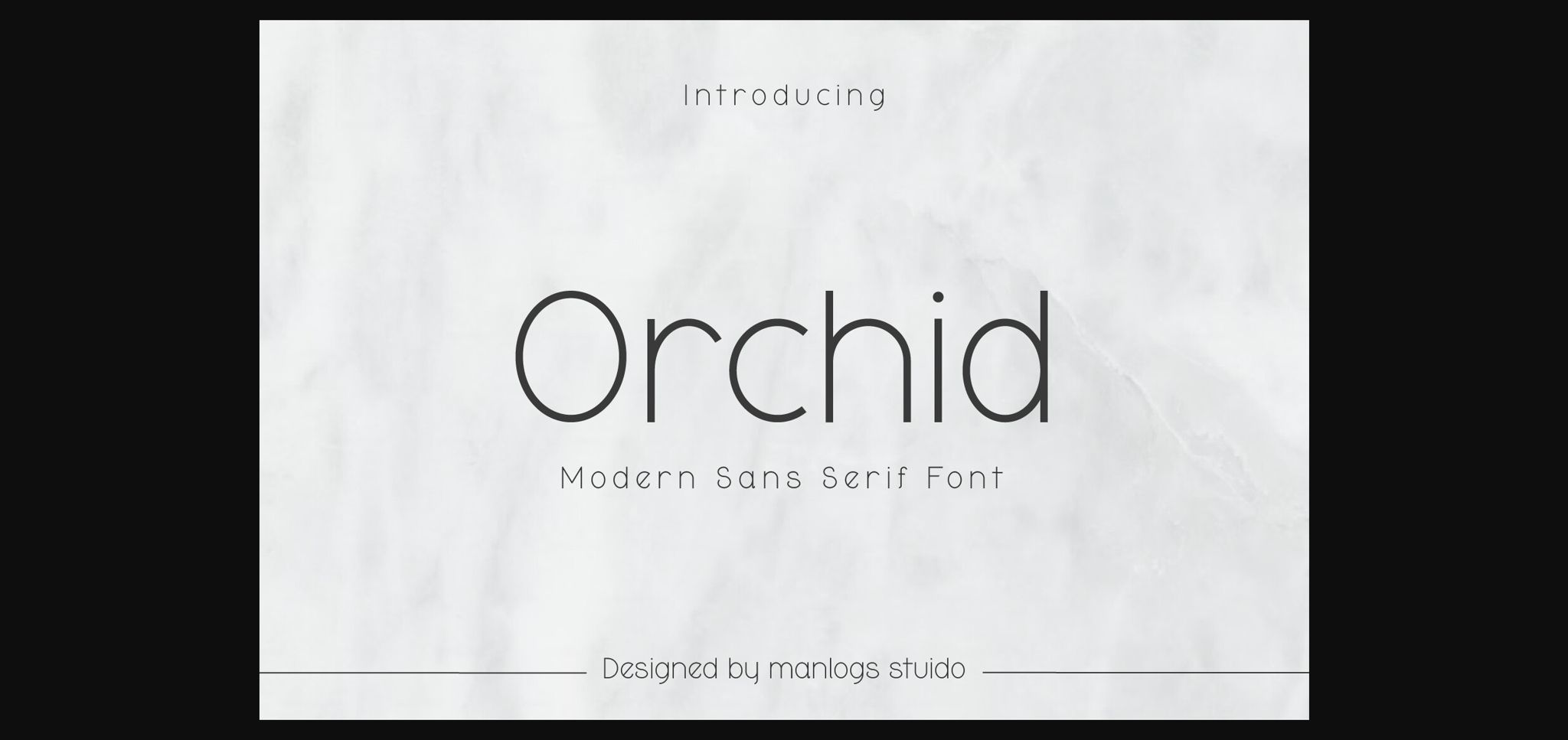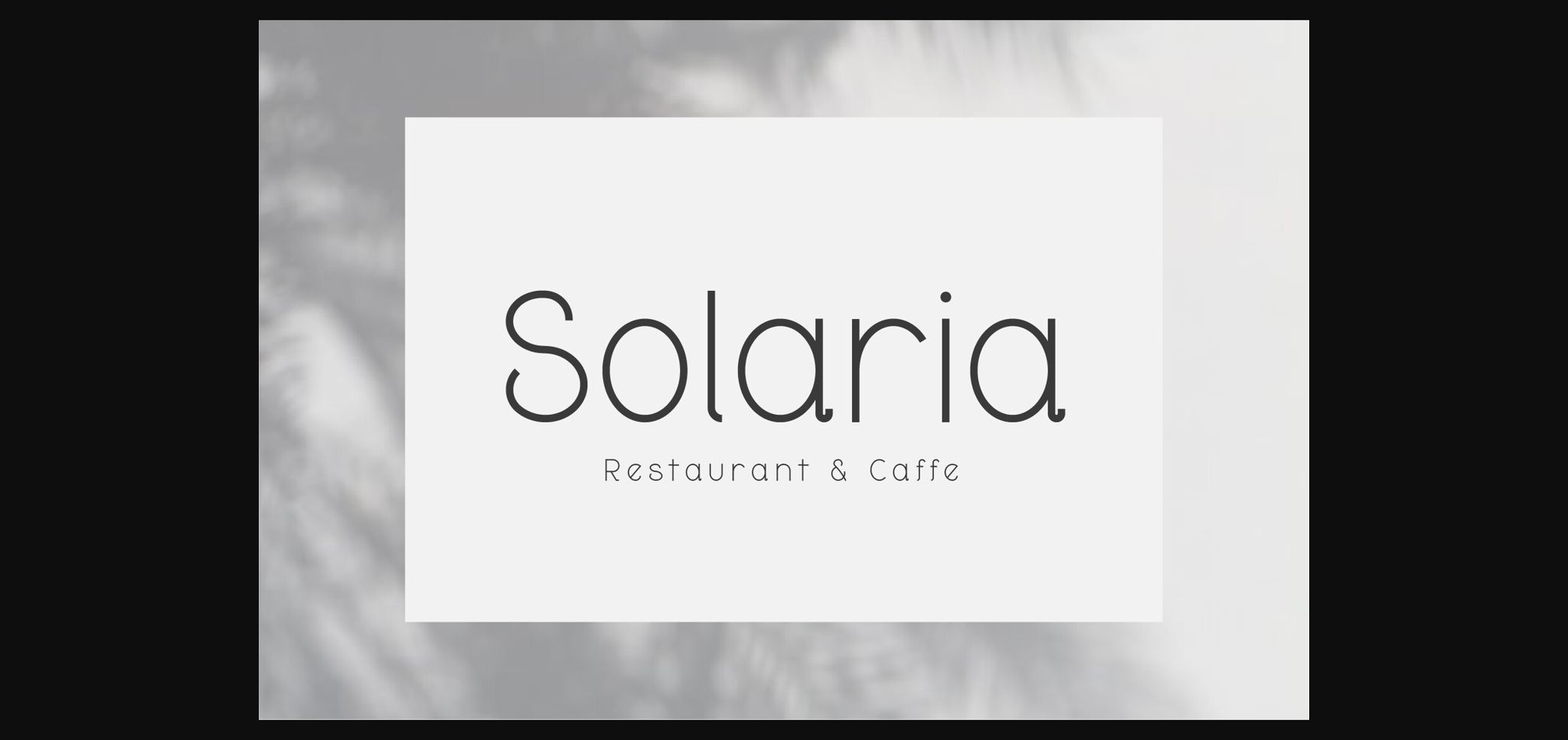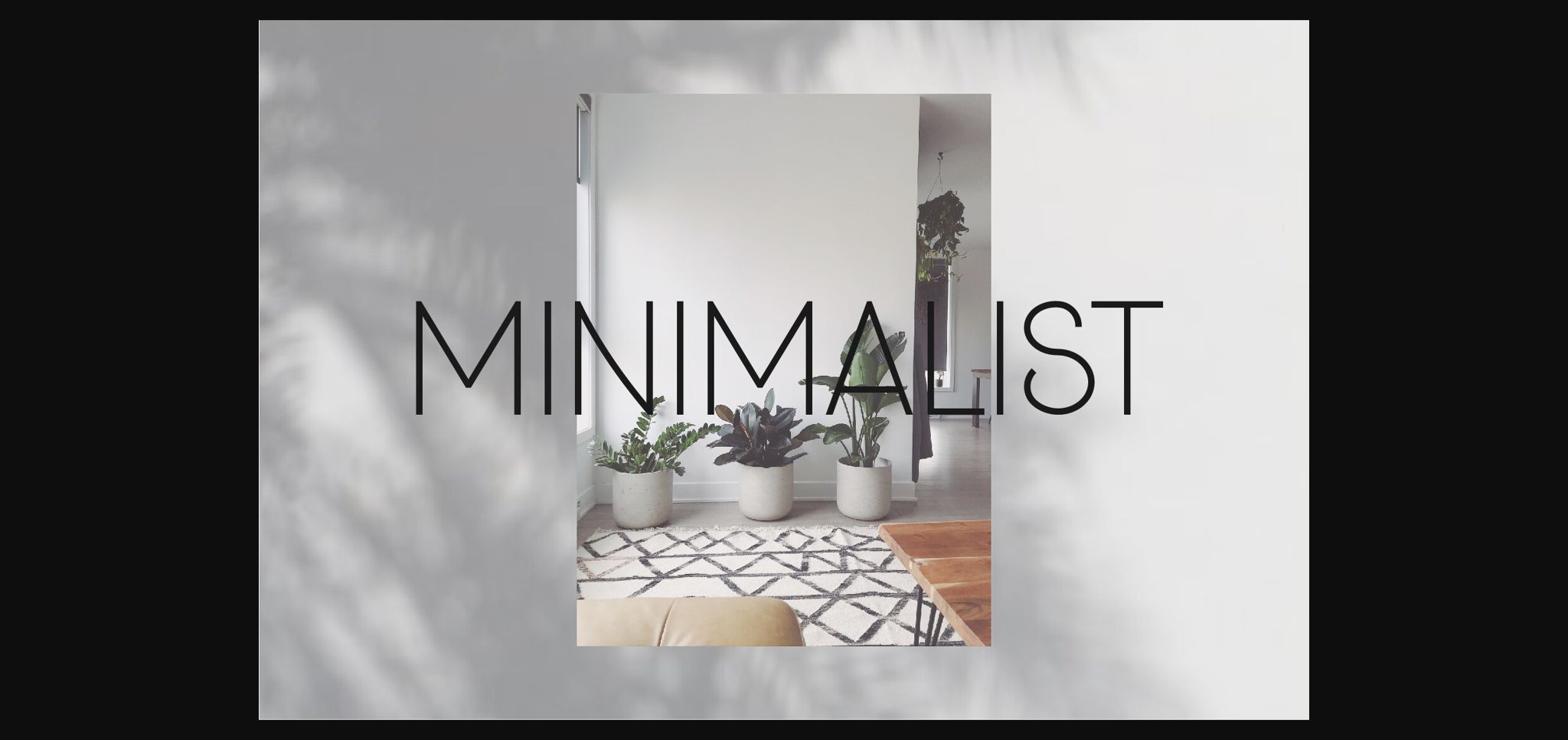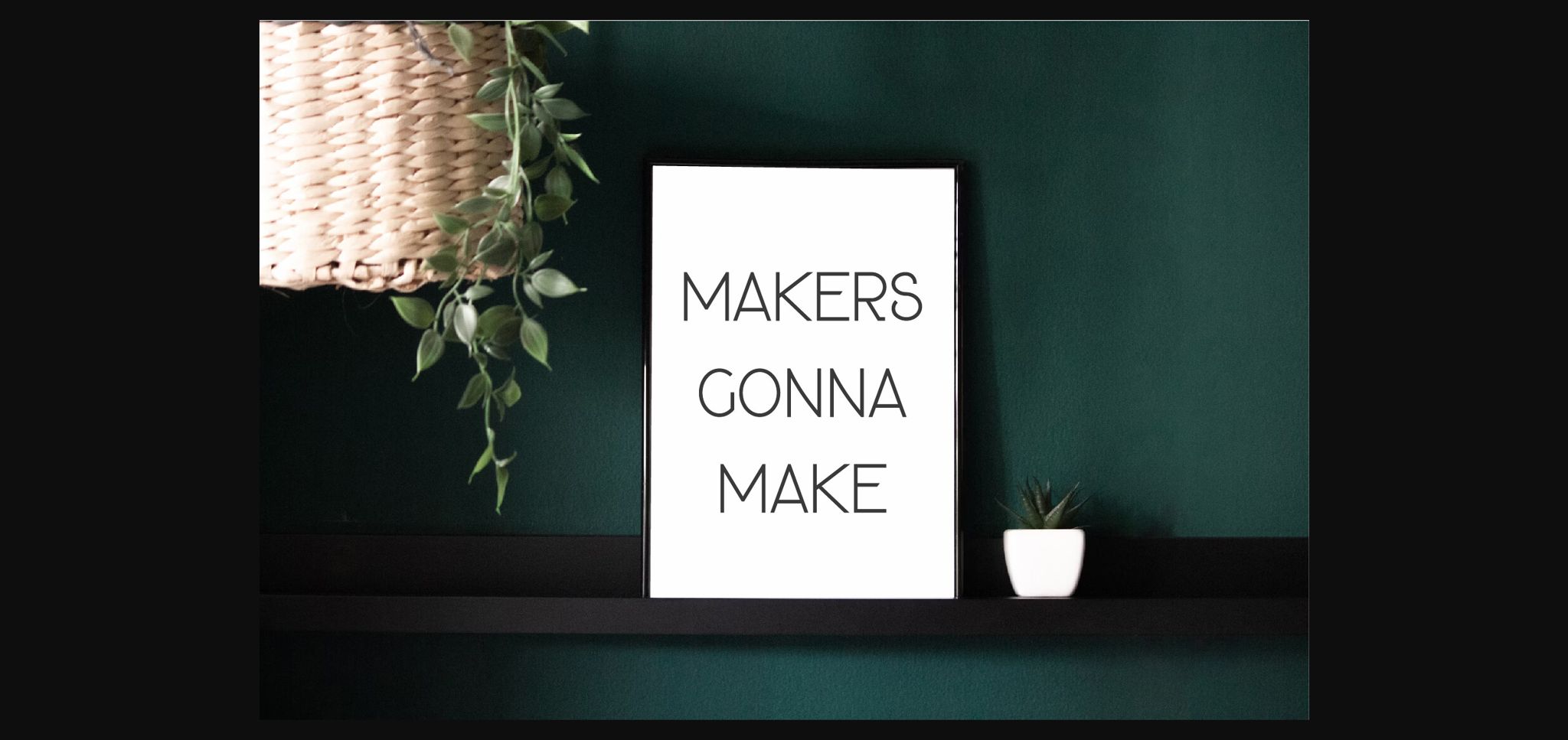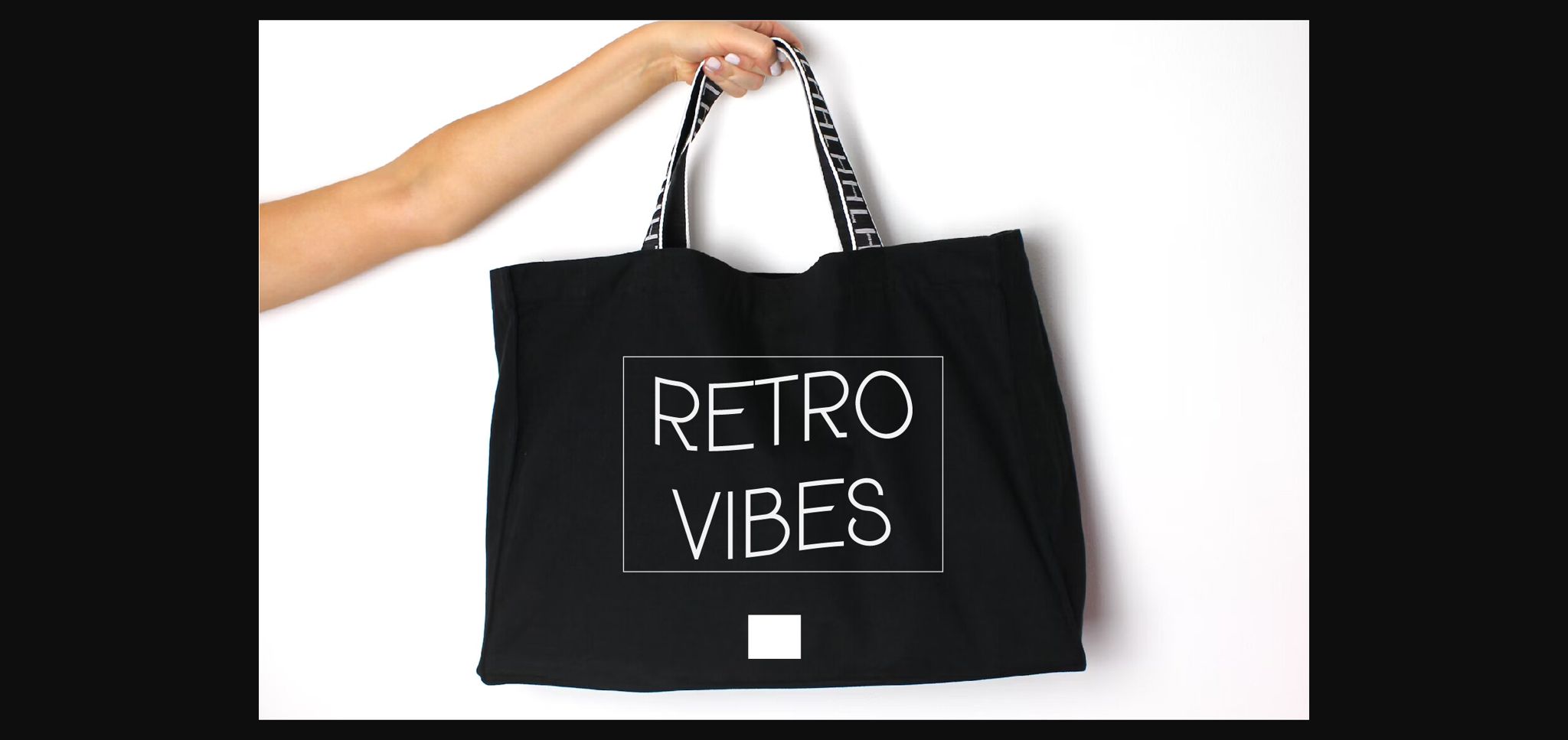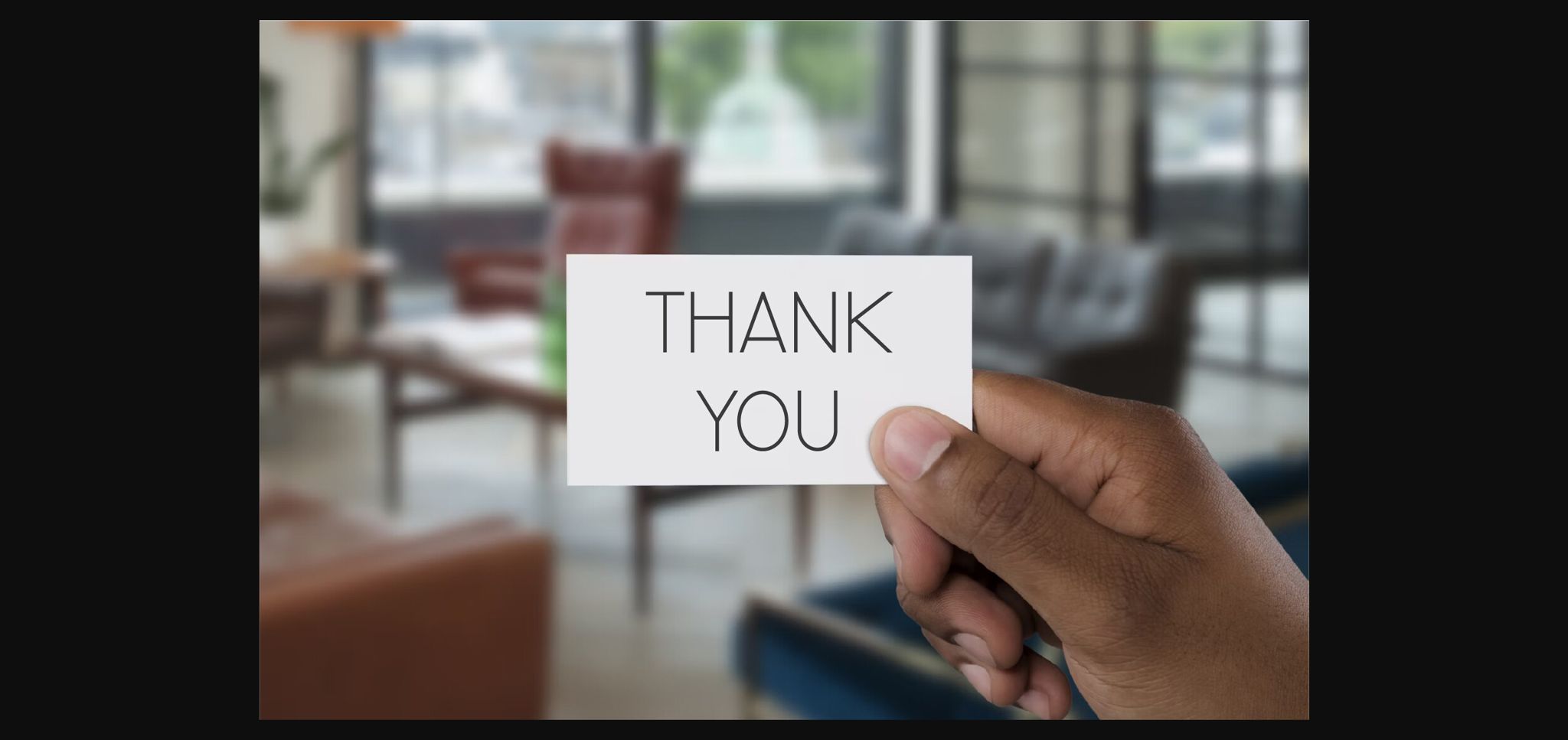
Orchid Font
About Orchid Font
Orchid is a simple and minimalist sans-serif font designed for a clean retro look. With its vintage balanced proportions, this font is perfect for creating a minimalist aesthetic in product fashion, mugs, wedding invitations, package design, quotes, t-shirts, gift labels, logos, web design, branding, and more!